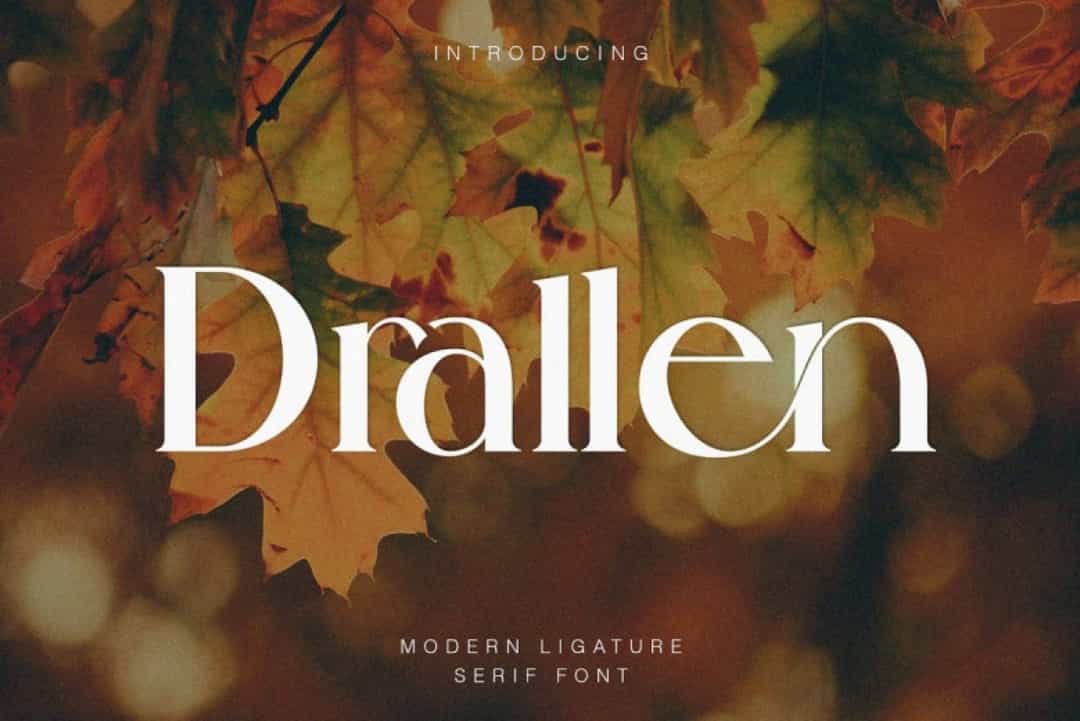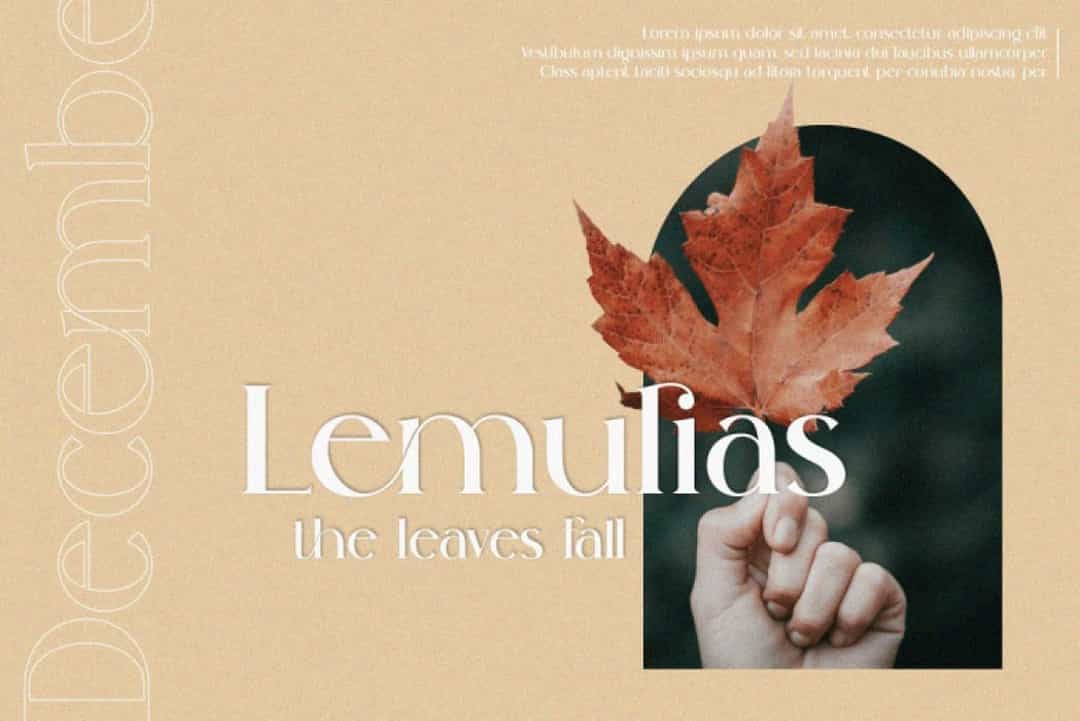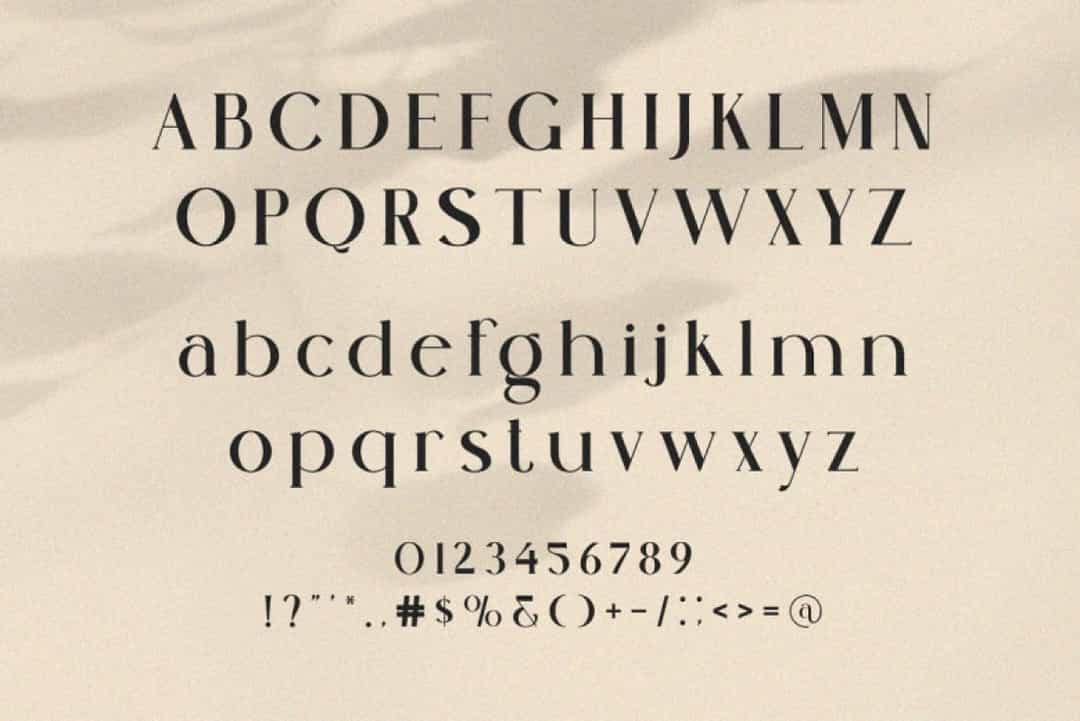
Drallen is an elegant serif typeface designed with OpenType features to meet contemporary as well as nostalgic requirements, perfect for magazines, logos and social media content. Ideal for magazines, logos and social media content alike! And now available to use in your next project!